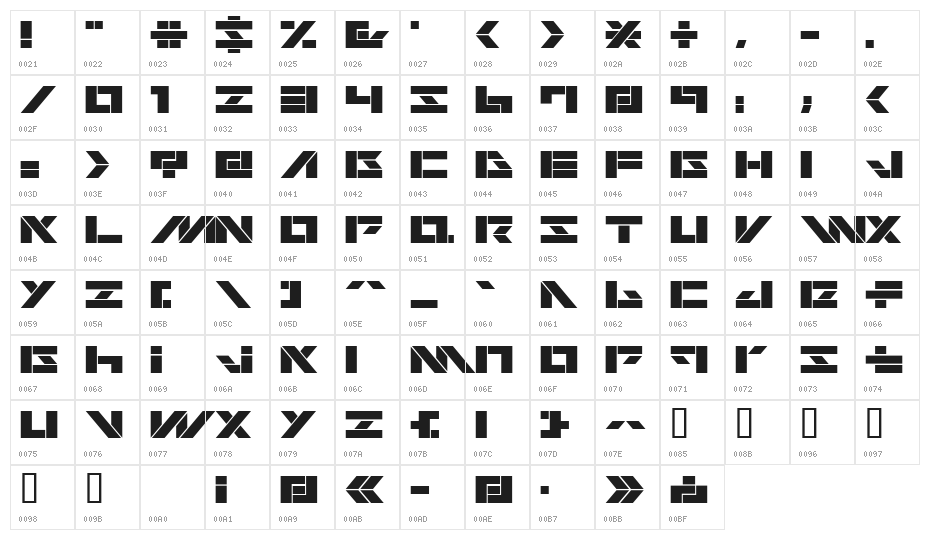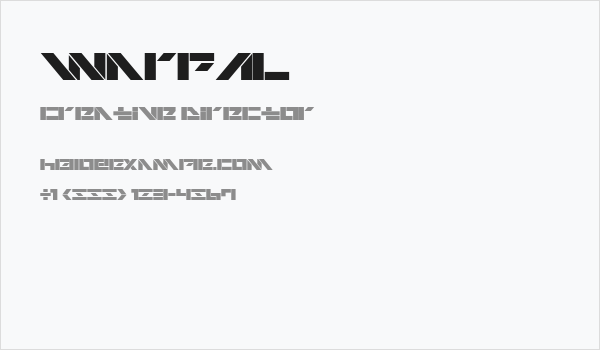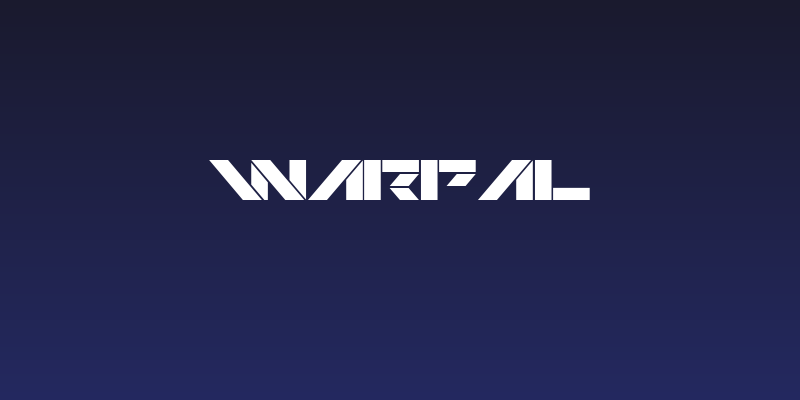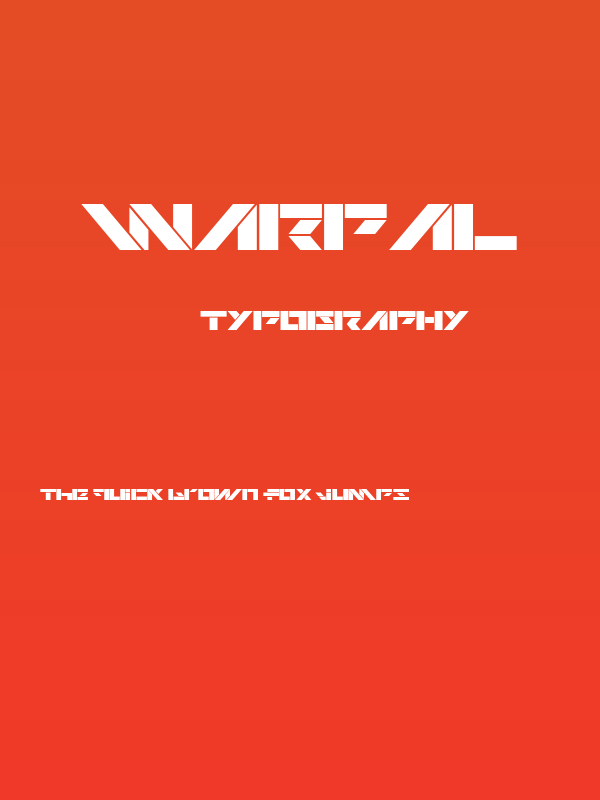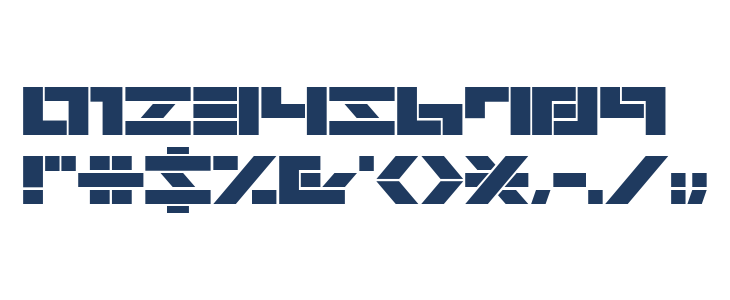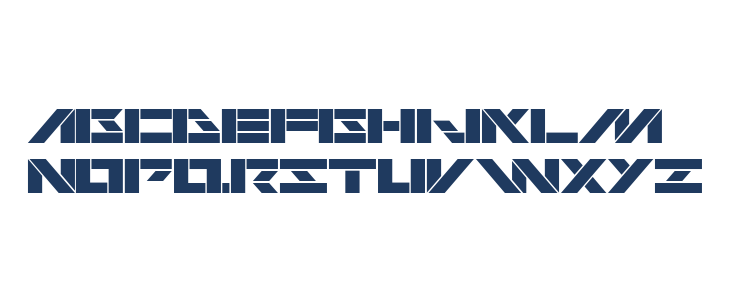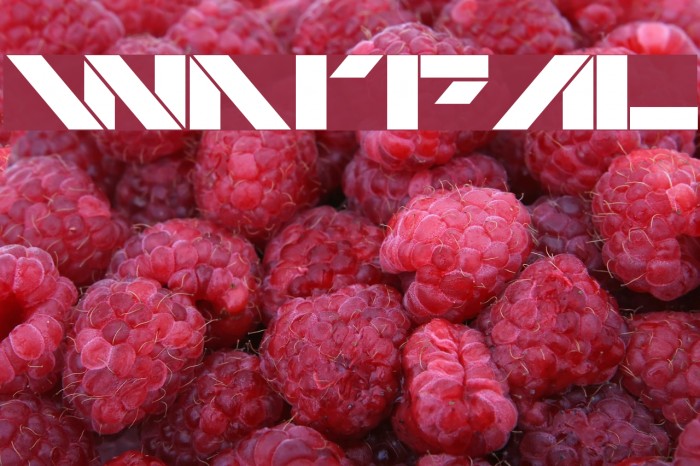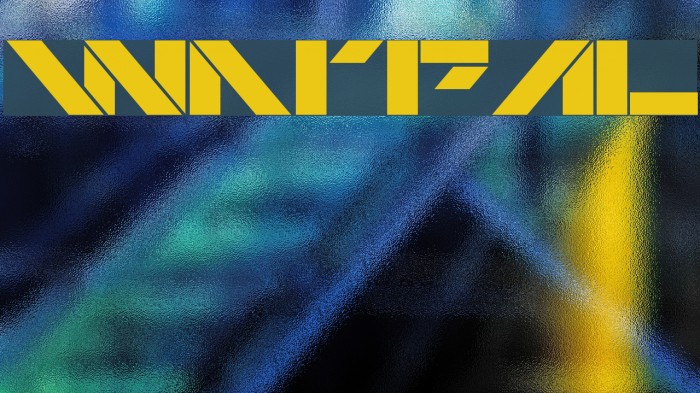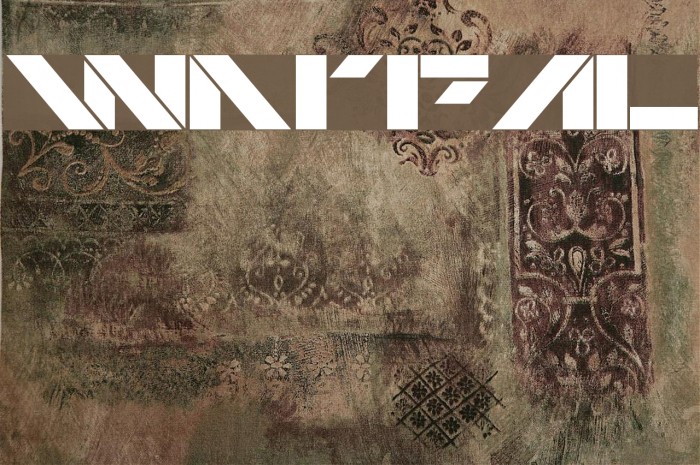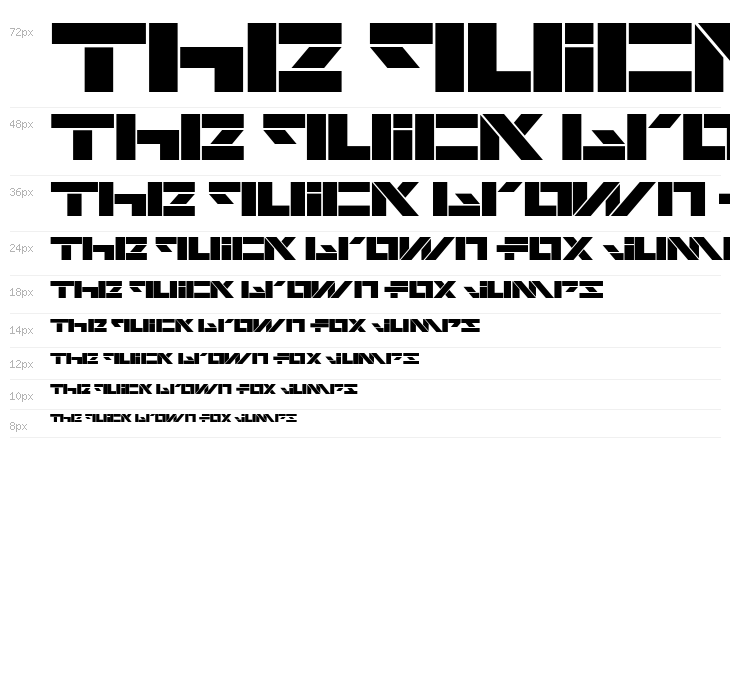
WarpAL Font
WarpAL Description
This font features a bold, geometric design with a futuristic and angular aesthetic. Each character is constructed with sharp, clean lines and a blocky structure, giving it a distinctive and modern appearance. The uppercase and lowercase letters maintain a consistent style, with the same angular cuts and bold presence. Numbers and special characters follow the same design principles, ensuring uniformity across the entire typeface. The font's unique style makes it stand out, ideal for projects that require a strong visual impact.
| Overall Style | Futuristic |
| Proposed Projects | Ideal for sci-fi themed projects, technology branding, video game titles, and modern posters. |